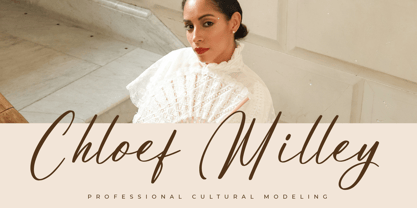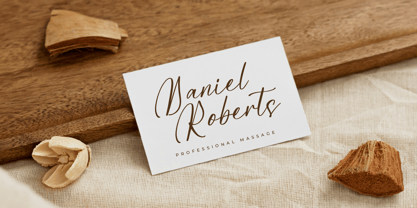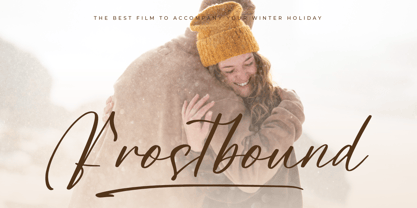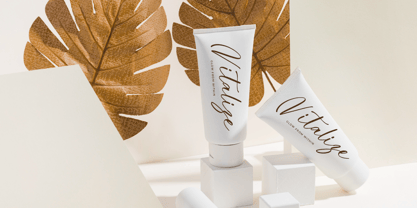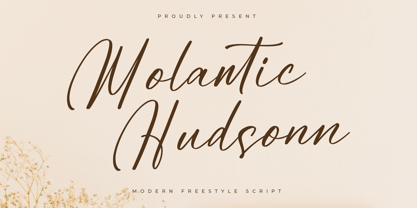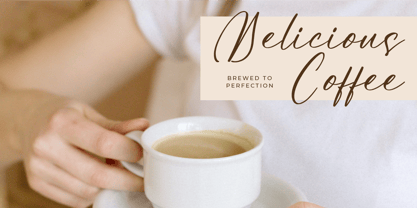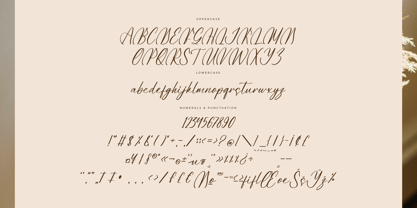
Molantic Hudsonn
The Molantic Hudsonn Font Family was designed by Heru Utama Putra and published by Letterena Studios. Molantic Hudsonn contains 2 styles and family package options. More about this family
Molantic Hudsonn is a stylish script font that embodies sophistication and grace. With its fluid, sweeping letterforms, this font exudes a timeless elegance and adds a touch of glamour to any project. Ideal for conveying luxury and refinement, this font elevates your designs with its captivating aesthetic.